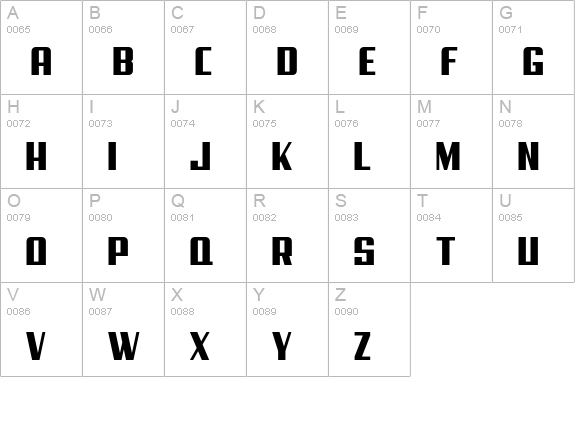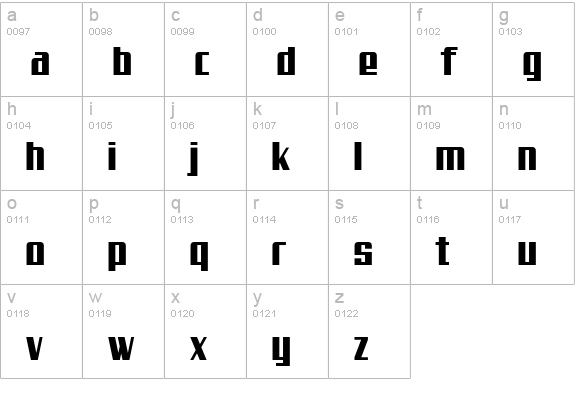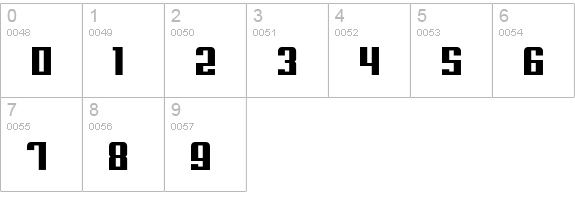
SteadfastCondensed Font Details
SteadfastCondensed font is a striking display typeface that exudes a sense of strength and determination. Its condensed letterforms are meticulously crafted to provide a bold and powerful presence to any design project. With its unique blend of sharp edges and smooth curves, this font effortlessly captures attention and demands to be noticed. This versatile typeface is perfect for a wide range of applications, from headlines and logos to posters and packaging. It adds a touch of sophistication and professionalism to any design, making it a great choice for both print and digital media. But what truly sets SteadfastCondensed apart is that it is not only visually stunning, but also freely available to download. You can easily access this font at FontsMarket.com, where it is offered as a complimentary resource for designers and creatives alike. Whether you're a seasoned professional or just starting out, having access to a high-quality font like SteadfastCondensed can elevate your designs to new heights. So why wait? Take advantage of this incredible opportunity and download SteadfastCondensed font today. Unleash your creativity and let this font become an essential tool in your design arsenal. With its bold and steadfast character, it will undoubtedly make a lasting impression on your audience.